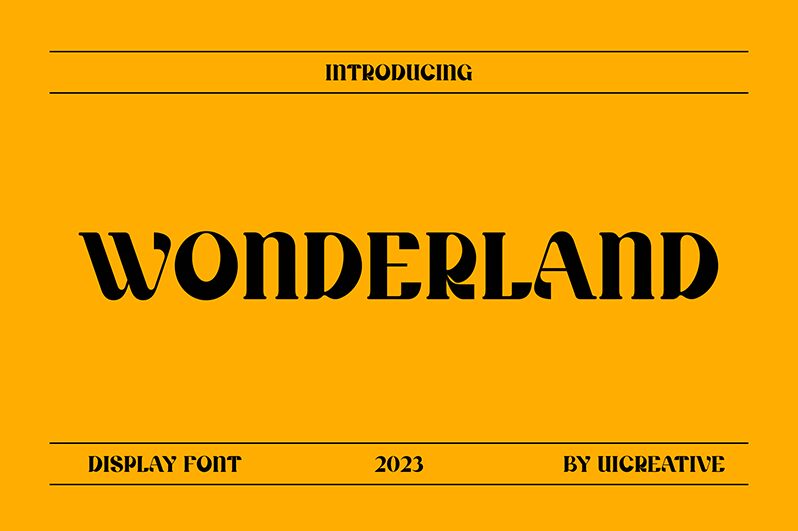
WONDERLAND
Wonderland, a captivating serif font crafted by UI Creative, exudes a delightful retro charm with its bold, whimsical strokes. This distinctive typeface seamlessly blends the elegance of traditional serifs with a touch of vintage flair, creating a visually striking and attention-grabbing aesthetic. The font's bold weight lends an air of confidence and sophistication, making it an ideal choice for a wide range of design applications.
Wonderland's versatility shines through its ability to elevate various design projects, from eye-catching headlines and impactful logos to nostalgic brand identities and charming editorial layouts. Its retro-inspired styling effortlessly evokes a sense of timelessness, making it a versatile option for classic-inspired designs, vintage-themed branding, or whimsical editorial projects that seek to capture a sense of wonder and imagination.